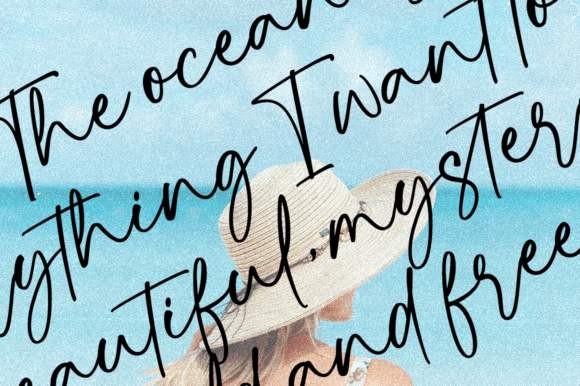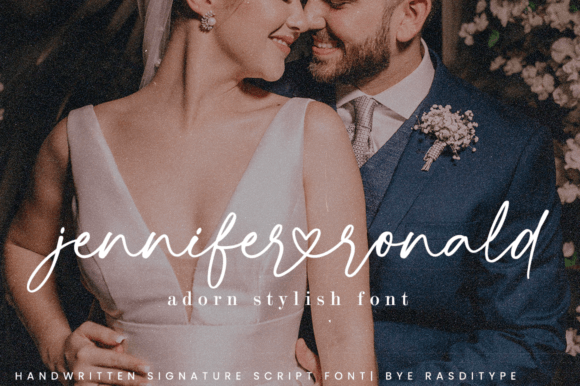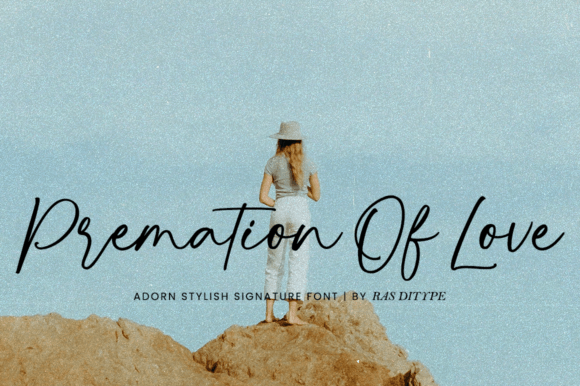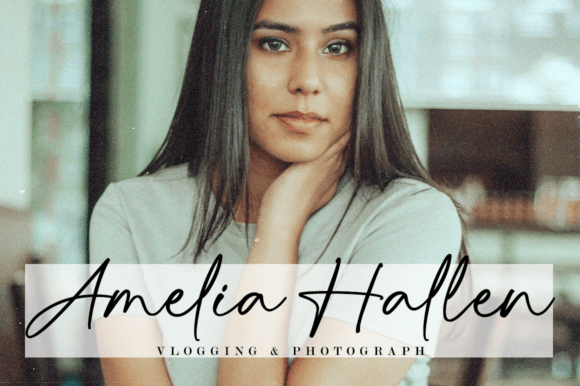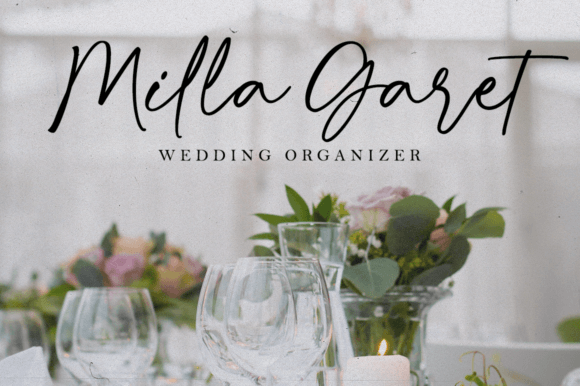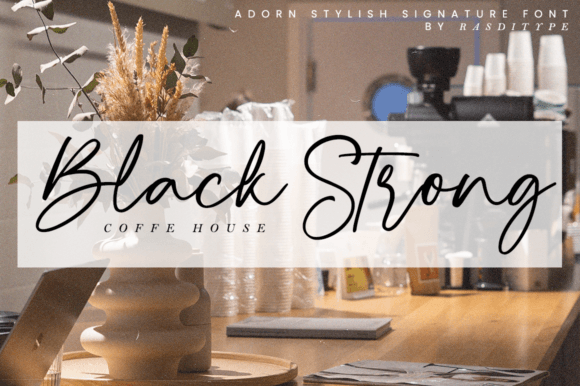
Introducing Adorn Stylish Font: Elevate Your Designs with Elegance
In the world of typography, a well-crafted font can make all the difference in elevating your designs from ordinary to extraordinary. Adorn Stylish Font is a beautiful, clean, and stylish typeface that is sure to capture the hearts of designers and crafters alike. Inspired by natural handwriting with a smooth flow, Adorn Stylish is the perfect addition to your font collection, offering a wide range of creative possibilities.
What Makes Adorn Stylish Font So Special?
Adorn Stylish Font boasts several distinctive features that set it apart from other fonts. One of its most notable characteristics is the fabulous beginning and ending lowercase swashes, which add a touch of elegance and sophistication to any design. Additionally, the font includes lowercase heart swashes, allowing you to connect words or letters together with a romantic and whimsical flair.
Perfect for a Wide Range of Designs
Adorn Stylish Font is incredibly versatile, making it suitable for a diverse array of design projects. Whether you’re creating:
- Wedding stationery, such as invitations, save-the-dates, and thank-you cards
- Instagram quotes and social media graphics
- Modern logos and branding materials
- Packaging designs for products
- Websites and digital content
Adorn Stylish Font is the perfect choice. Its clean and stylish aesthetic ensures that your designs will look polished and professional, while the swashes and heart connections add a touch of personality and whimsy.
Using Adorn Stylish Font: Tips and Tricks
To get the most out of Adorn Stylish Font, here are a few tips to keep in mind:
- Experiment with swashes: Use the beginning and ending lowercase swashes to add a decorative touch to your text. You can also use the heart swashes to connect words or letters together for a more romantic look.
- Keep it lowercase: Adorn Stylish Font works best with lowercase words, so try to use it in lowercase for optimal results.
- Mix and match: Combine Adorn Stylish Font with other fonts to create a unique and visually appealing design.
Why Designers and Crafters Love Adorn Stylish Font
Adorn Stylish Font has quickly become a favorite among designers and crafters due to its:
- Elegant and sophisticated aesthetic: The font’s clean and stylish design makes it perfect for projects that require a touch of refinement.
- Versatility: Adorn Stylish Font can be used for a wide range of design projects, from wedding stationery to social media graphics.
- Emotional connection: The heart swashes and swashes add a touch of personality and whimsy to designs, making them more engaging and memorable.
Adorn Stylish Font is a beautiful and versatile typeface that is sure to elevate your designs to the next level. With its elegant and sophisticated aesthetic, fabulous swashes, and heart connections, it’s the perfect choice for designers and crafters looking to add a touch of refinement and personality to their work. So why wait? Download Adorn Stylish Font today and start creating stunning designs that capture the hearts of your audience!